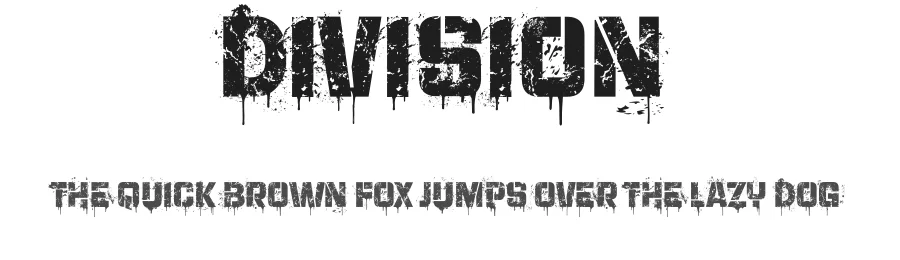
About Phantom Ghost Font
Phantom Ghost Font is a decorative font that shines as a display or heading face. Pair it with a clean sans-serif or serif font for body text β the contrast creates a clear hierarchy while the two styles stay balanced and easy to read.